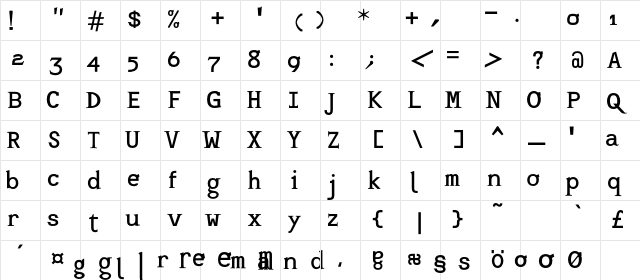
Complete TempMono Regular glyph index. Displaying only characters natively supported by TempMono Regular font.
TempMono uses fixed-width spacing throughout, giving it the structured, systematic character associated with coding environments and technical documentation.
Pro Tip: Use TempMono with slightly increased line-height for extended reading - fixed-width spacing can feel dense in longer passages without extra breathing room.